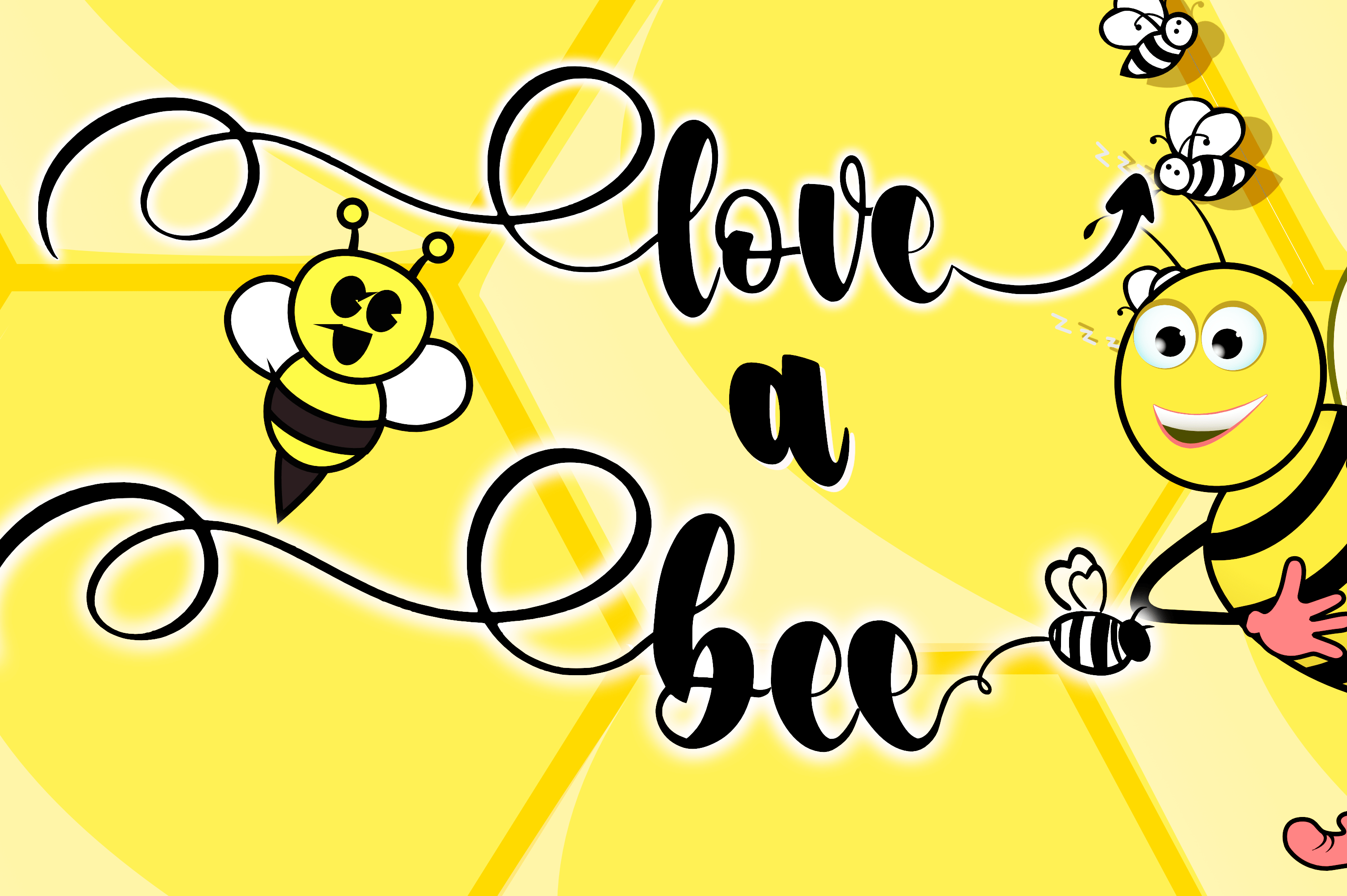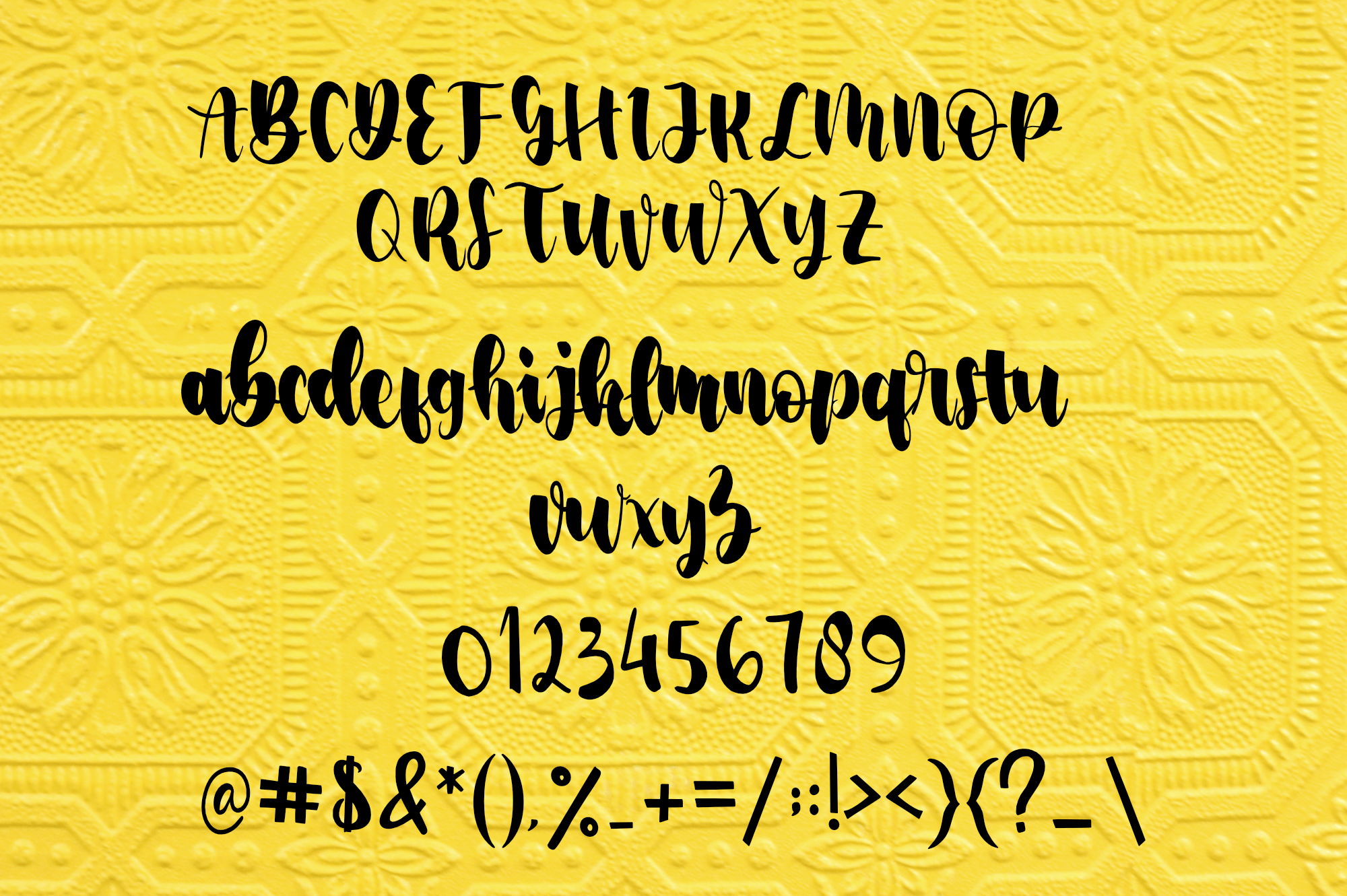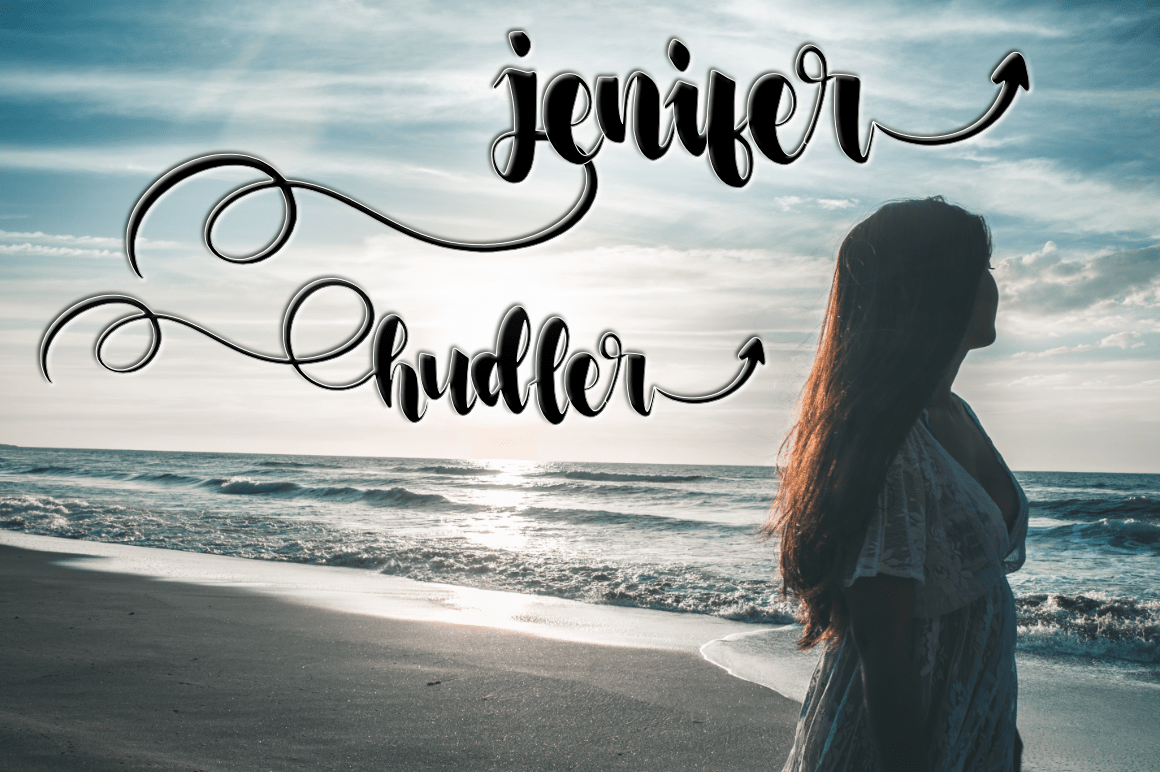
Bee Honey Font
Bee Honey Script Font
It’s a modern calligraphy design, including Regular. This font is casual and beautiful with swash. Can be used for various purposes. such as logos, product packaging, wedding invitations, branding, headlines, signage, labels, signatures, book covers, posters, quotes, and more.